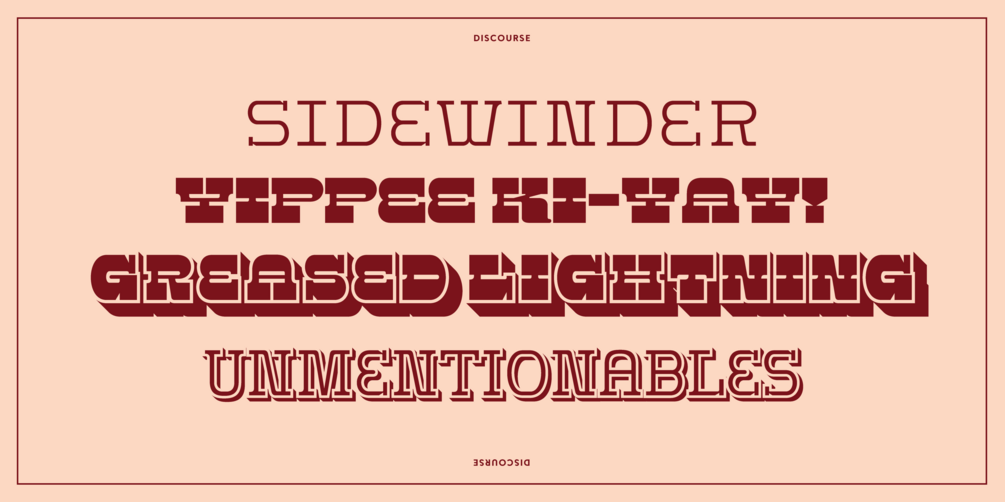
Although it references classic reverse-contrast wood type associated with the era of the Wild West, Discourse Wide Light Shadow by Dave Bailey is the opposite extreme of the Wide Heavy Shadow, a reinterpretation of conventional forms, more unique and distinctly neo-modern. This drives Discourse into new territory by stripping away historical context, adding versatility, and staking a rowdy new claim in contemporary design. Layering the Shadow, Outline, and Fill versions provides a fun chromatic effect.
Discourse is best used at large sizes. It looks great on packaging, in headlines, and for assembling colorful logotypes. Individual glyphs are powerful as isolated design elements like drop caps or icons.